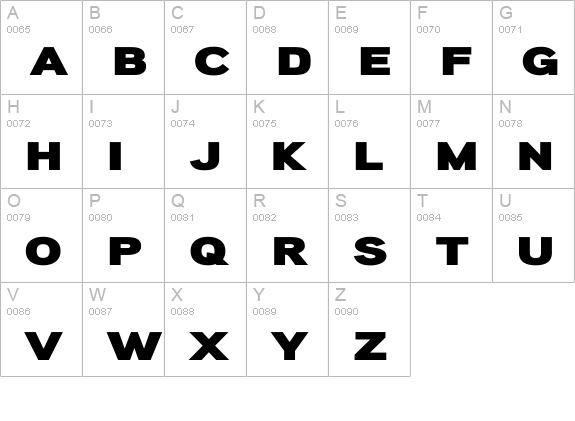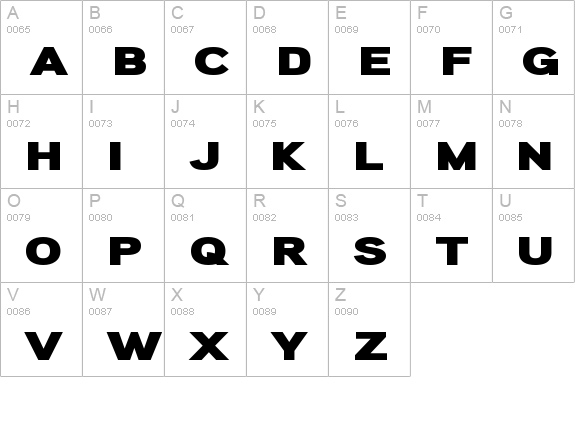
Aaux ProPoster font is a modern and versatile typeface designed for eye-catching headlines and attention-grabbing posters. With its clean lines and bold appearance, Aaux ProPoster exudes confidence and sophistication, making it perfect for advertising campaigns, event promotions, and editorial layouts. This font's unique blend of elegance and impact ensures that your message will stand out in any visual design. What's even better is that Aaux ProPoster is available for free download at FontsMarket.com. Now you can elevate your projects with this premium font without breaking the bank. So why wait? Download Aaux ProPoster today and make your designs pop with style and flair.